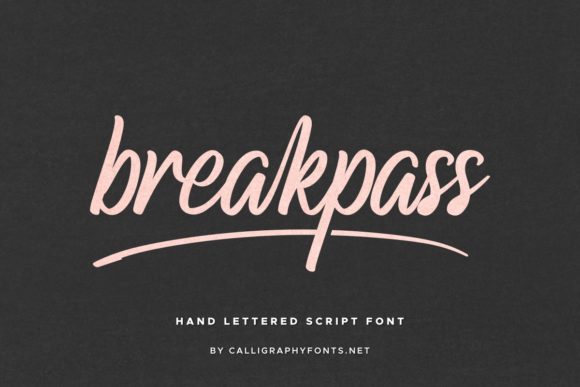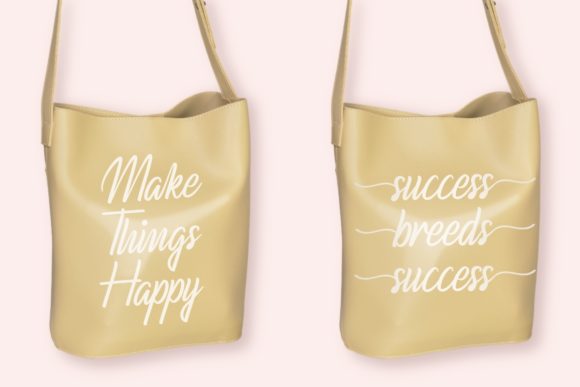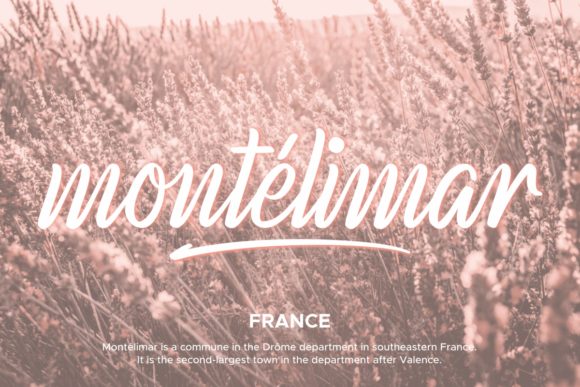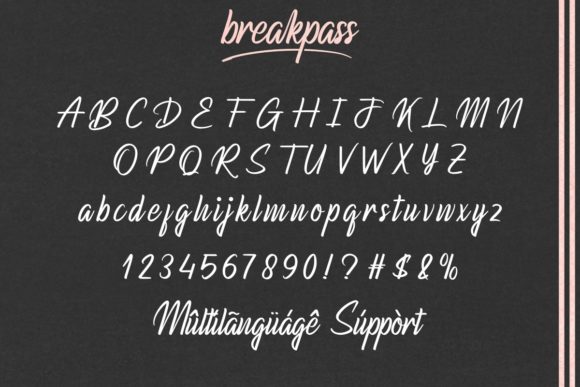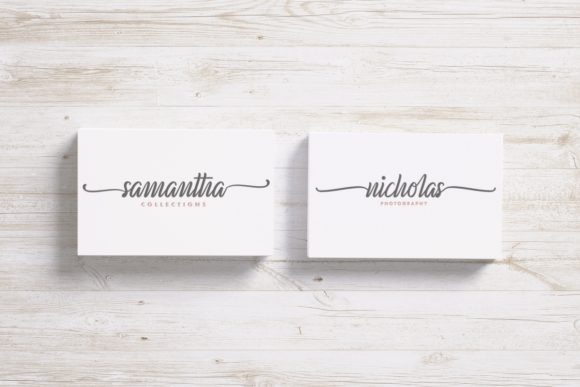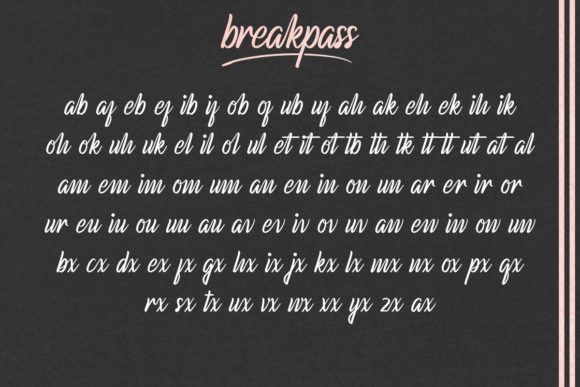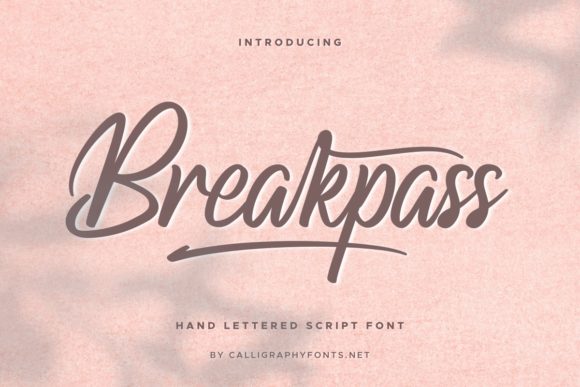
Introducing Breakpass Font: The Ultimate Handwritten Font for Elegant Designs
Are you a designer or crafter looking for a unique and timeless font to elevate your designs? Look no further than Breakpass Font, an incredibly distinct, delicate, and elegant handwritten font. With its stunning appearance, Breakpass Font is perfect for a wide range of design projects, including wedding invitations, thank you cards, quotes, greeting cards, logos, business cards, and more.
The Characteristics of Breakpass Font
Breakpass Font boasts a distinctive and delicate appearance that sets it apart from other handwritten fonts. Its elegant strokes and refined lines make it an ideal choice for designs that require a touch of sophistication and class. Whether you’re creating a wedding invitation or a business card, Breakpass Font is sure to make a lasting impression.
Wedding designers and event planners, rejoice! Breakpass Font is an excellent choice for creating stunning wedding invitations, save-the-date cards, and other event-related designs. Its delicate and elegant appearance will add a touch of romance and whimsy to your designs, making them truly unforgettable. Imagine pairing Breakpass Font with beautiful floral patterns, watercolor illustrations, or minimalist designs to create breathtaking wedding stationery.
Ideal for Crafters and DIY Enthusiasts
Crafters and DIY enthusiasts, you’ll love Breakpass Font for your handmade projects. Use it to create personalized greeting cards, gift tags, and other paper crafts that require a personal touch. Breakpass Font is also perfect for journaling, scrapbooking, and other creative projects where a beautiful, handwritten font is desired.
One of the best things about Breakpass Font is its versatility. It can be used for a wide range of design projects, from elegant and formal to playful and whimsical. Pair it with bold graphics, bright colors, or subtle textures to create unique and eye-catching designs. Whether you’re designing for print or digital, Breakpass Font is sure to shine.
Why Choose Breakpass Font?
So, why choose Breakpass Font over other handwritten fonts? Here are just a few reasons:
- Unique and distinctive: Breakpass Font stands out from the crowd with its delicate and elegant appearance.
- Timeless: Unlike trendy fonts that quickly go out of style, Breakpass Font is a timeless choice that will remain elegant and sophisticated for years to come.
- Versatile: Breakpass Font can be used for a wide range of design projects, from wedding invitations to business cards.
- Easy to read: Despite its elegant appearance, Breakpass Font is easy to read, making it perfect for designs that require a clear and concise message.
Tips for Using Breakpass Font
To get the most out of Breakpass Font, here are a few tips:
- Pair with complementary fonts: Pair Breakpass Font with bold or sans-serif fonts to create visual interest and contrast.
- Experiment with colors: Try pairing Breakpass Font with different colors, textures, and patterns to create unique and eye-catching designs.
- Use it sparingly: Use Breakpass Font sparingly to add a touch of elegance and sophistication to your designs.
In conclusion, Breakpass Font is an exceptional handwritten font that offers a unique and timeless touch to any design project. Its delicate and elegant appearance makes it perfect for wedding invitations, thank you cards, quotes, greeting cards, logos, business cards, and more. Whether you’re a designer, crafter, or DIY enthusiast, Breakpass Font is sure to become a favorite in your design arsenal.